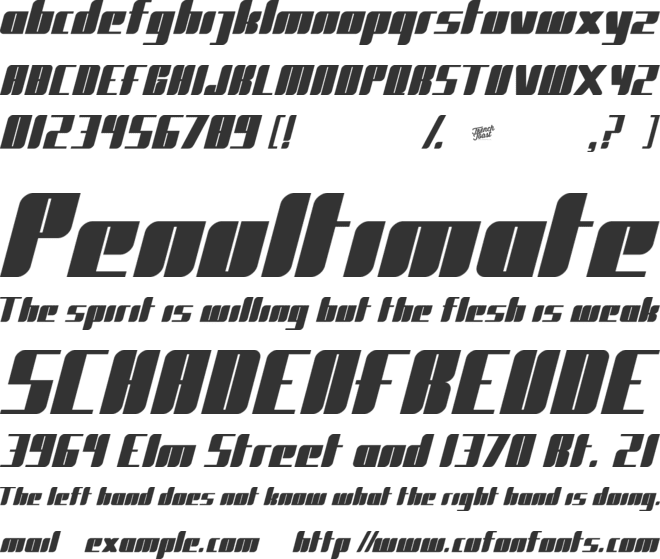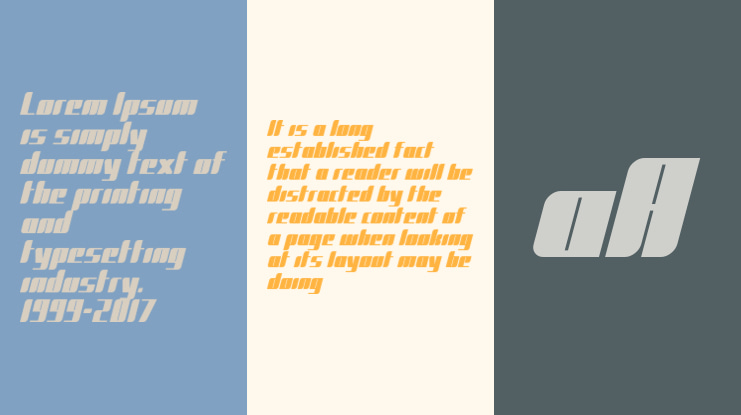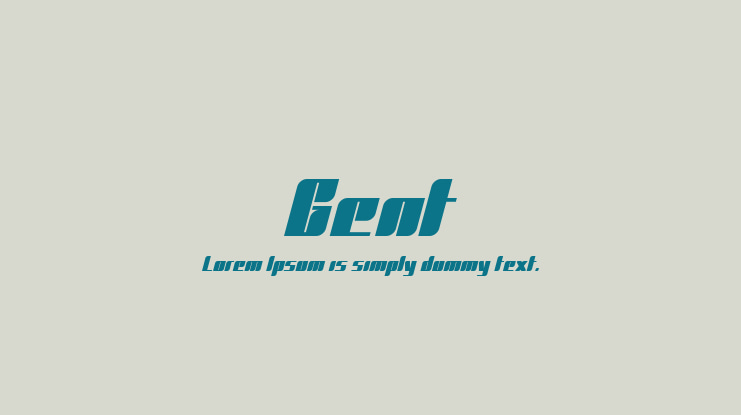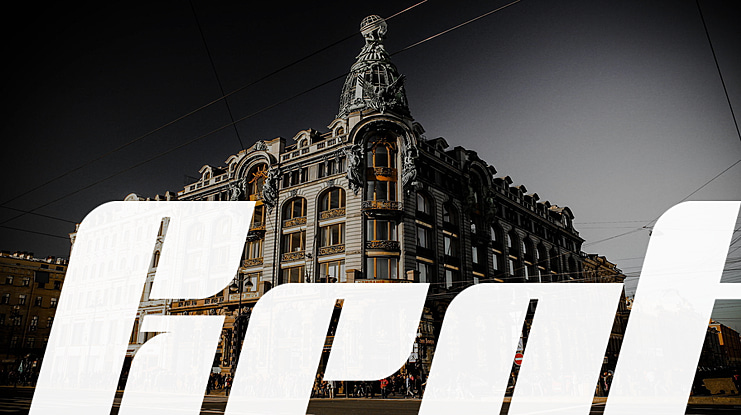
Gent Font
Gent is a free bold italic typeface designed by fnkfrsh. Gent typeface is perfect for big Bold Headlines and displays that need a slightly modern look.